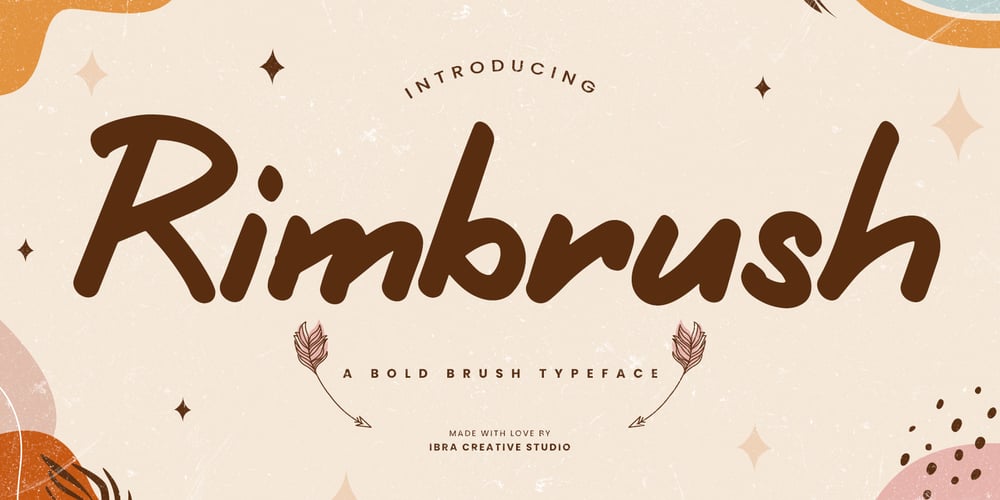
Rimbrush Font Family was designed by Roisatul Azizah and published by IbraCreative. Rimbrush contains 1 styles and family package options. Rimbrush – A Bold Brush TypefaceRimbrush, a bold brush typeface, commands attention with its powerful strokes and expressive design. Every letter exudes a distinctive and robust character, as if painted with deliberate determination. The thick, daring brushstrokes in Rimbrush evoke a sense of confidence and energy, making it an ideal choice for projects that demand a strong visual impact. Whether used in headline designs, branding, or artistic endeavors, Rimbrush leaves an indelible impression, marrying the raw essence of handcrafted brushwork with a contemporary boldness. This typeface stands as a testament to the beauty of bold expression, inviting designers to amplify their messages with a font that speaks volumes through its striking and impactful design. Rimbrush is perfect for branding projects, logo, wedding designs, social media posts, advertisements, product packaging, product designs, label, photography, watermark, invitation, stationery, game, fashion and any projects.Fonts include multilingual support for; Afrikaans, Albanian, Czech, Danish, Dutch, English, Estonian, Finnish, French, German, Hungarian, Italian, Latvian, Lithuanian, Norwegian, Polish, Portuguese, Slovak, Slovenian, Spanish, Swedish.